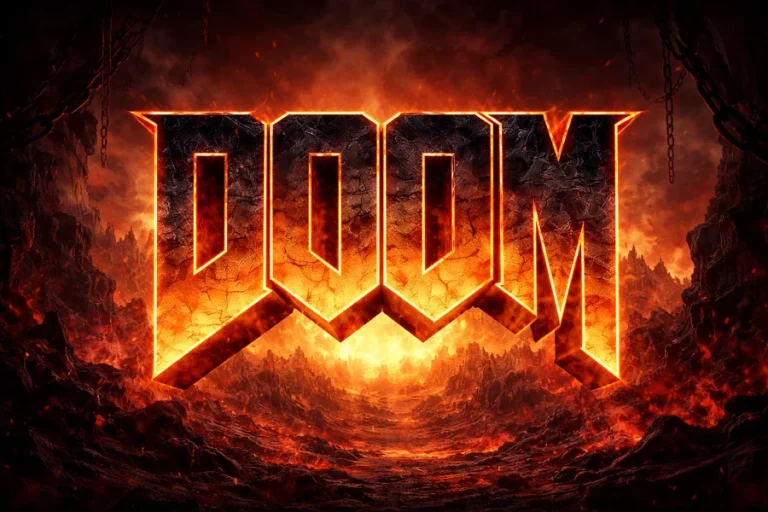
Doom Font Design Style Behind the Legendary Game
One of the most household type styles in the history of video games is Doom font. The font was initially popularized through the legendary 1993 game DOOM and it became the symbol of the rapid action, somber moods, and visual assertiveness. To this day, this iconic style of lettering is still remembered by designers, gamers, and content creators to inspire retro gaming energy or a strong, aggressive visual image.
The font of the initial game logo attracted the eyes immediately. It could not be overlooked because of its sharp edges, dramatic gradient colors and heavy structure. As time went on, the typeface was replicated and modified into different versions online and designers were enabled to utilize the style in posters, thumbnails, merchandise and digital artwork.
Nowadays, this typeface of classic games has much more impact than it was intended to have. It is an whole gaming culture period and still serves as an inspiration to the graphic designers who desire to reclaim the same intensity and nostalgia.
The Origins of the Doom Font
The history of the Doom font starts with the creation of DOOM, which was a revolutionary first-person shooter game launched by id Software in the year 1993. The game brought a revolution to the gaming industry due to its rapid playing style, detailed environments and unique visual presentation style. One of the largest components of such a visual identity was its memorable logo.
Artist Don Ivan Punchatz came up with the original DOOM logo. Instead of presenting a standard typeface, the lettering in the logo was designed into an original one to fit the dramatic theme of the game. The design was characterized by huge block letters, which looked to have been chiseled out of metal or stone, great perspective and a gradient palette, ranging in the yellow to the blue.
This bespoke designer soon was a household name of the game. Since the text at the start was not naturally in the form of a standard font, the fans and designers subsequently recreated similar types in order that people could apply the style to their own projects.
These replicas are what are commonly termed as Doom fonts and are currently available on numerous typography sites.
Key Design Characteristics of the Doom Font
The reason why the Doom font is so familiar is that it has a well-developed visual structure. The letters possess a number of unique features, which distinguish them among the regular fonts.
To begin with, the type face is very huge. This is because the thick letterforms are readable even at a distance (important to the packaging of games, promotion posters, and title screens).
Second, the letters are usually sharp cut and dramatic. This violent style of the game and is used to strengthen this sense of action and power.
The other distinguishing characteristic is the perspectives effect applied in the original logo. The lower area of the letters is broader giving the effect of a 3D illusion which gives the letters depth and weight.
The color is also significant. The primeval logo has a powerful gradient which shifts to warm yellow and orange on the top and, on the bottom, it shifts to deep blue and black. Although numerous contemporary interpretations of the font are provided in plain text, the designers usually reproduce this gradient in order to reproduce the original appearance.
Lastly, spacing between letters is also tight and effective. There is a sense of belonging between the characters that form a concrete block of visual that intensifies the logo.
Why the Doom Font Became So Iconic
Beyond some memorable logos of the early 1990s, not many video games could match the cultural impact that Doom had. The font was popular due to a number of reasons.
The success of the actual game is one of the largest causes. DOOM has become an international sensation and contributed to the development of the genre of the first-person shooter. The typography gained strong roots in the gaming culture because the logo was displayed by millions of players time and again.
The other consideration is the audacity of the design. The lettering is memorable and it is immediately conspicuous. The style is familiar even to non-players of the game.
The logo was also used everywhere during the period of the game when it was the most popular. It was put on game boxes, magazines, posters, merchandise and advertisements. This broad exposure served to establish the typography within the pop culture.
Nostalgia also contributed with time. The Doom font became an iconic representation of the retro gaming history as the retro gaming communities expanded. Fan art, YouTube thumbnails, gaming blogs, and merchandise all started using similar styles designed by the designer.
Due to this perpetual exposure, this font is still pertinent even after a period of over thirty years.
Why is the Doom font so popular?
The font became popular because of the massive success of the game DOOM and the powerful, memorable design of its logo.
Are there modern alternatives to the Doom font?
Yes. Many modern typefaces with bold, angular styles and heavy structures capture a similar feel and can be used in gaming or action-themed designs.